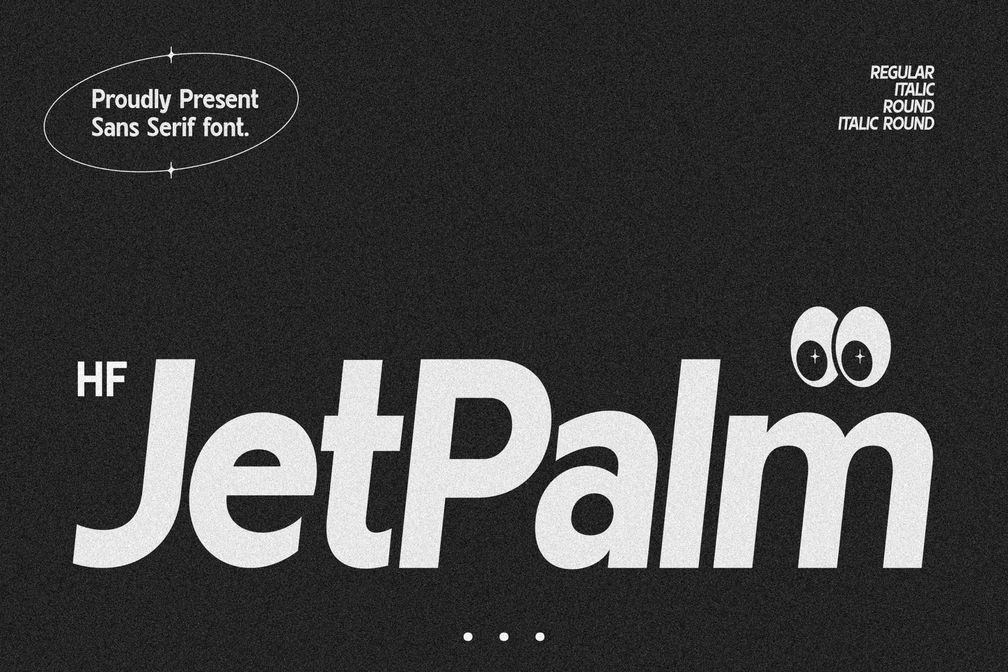
HF Jetpalm Sans Serif Font
HF Jetpalm is a sans serif font that can be combined in your design with a modern or retro feel. You can develop it easily if you want to use it as a logo, poster design, advertising banner, social media design, book title and various other designs.
HF Jetpalm is available in 4 styles that you can customize, namely, Regular, Italic, Round, and Italic Round.